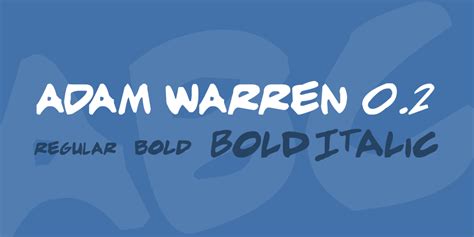
Uploaded by jimmie bailey ๐ (3 styles). Adam warren font is a comic book font and was created on mar 24, 2007. Adam warren pro font download is available free from fontget.